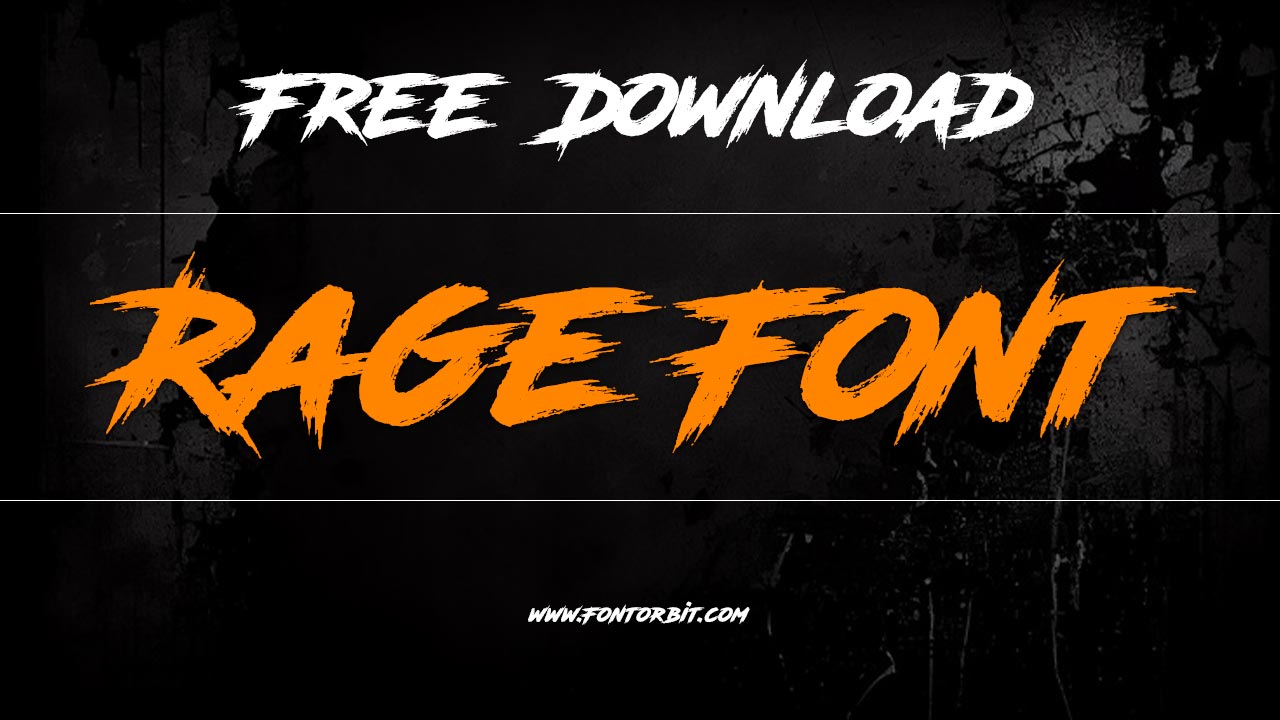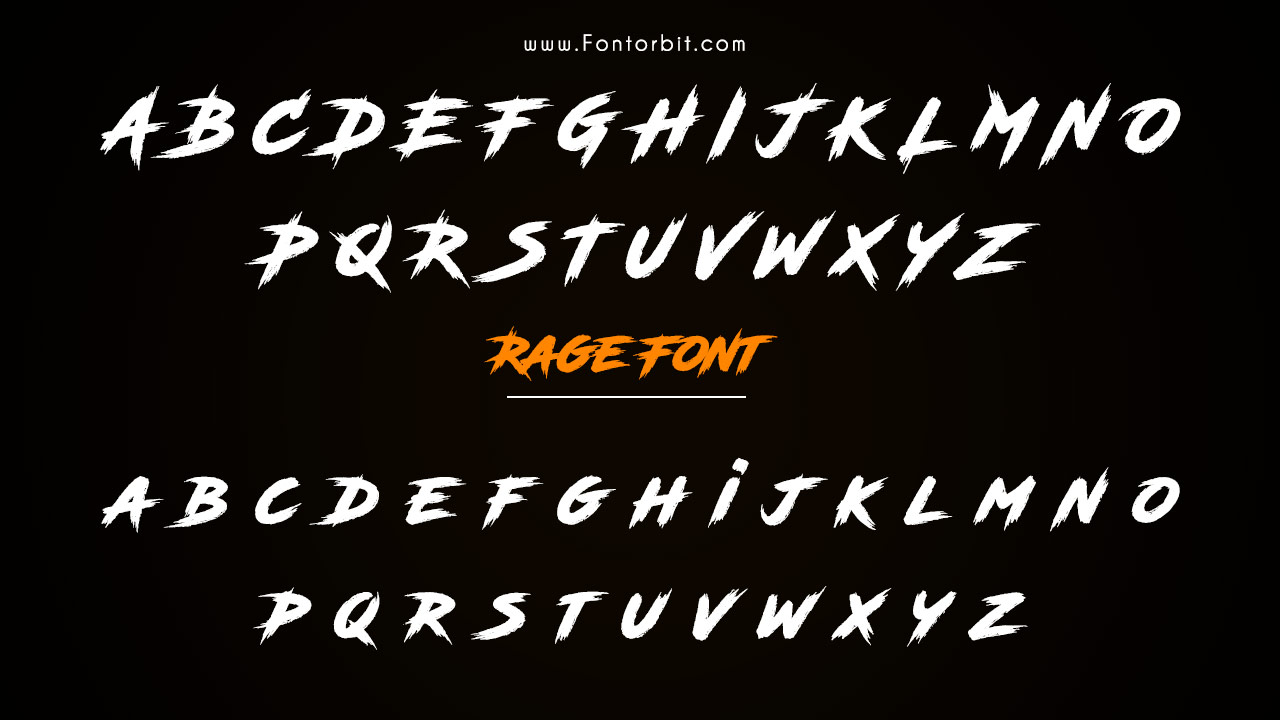
Rage is a bold, rough script font designed by Ron Zwingelberg and published by URW Type Foundry. It was first published on June 19, 2016. The font has a trashy, rebellious style, suitable for attention-grabbing designs. It’s free for personal use, with commercial licenses available through the designer’s website.
- Rage STD Regular
- Rage Italic
Rage suits edgy or aggressive designs.
- Album covers
- Apparel designs
Rage font offers a striking and edgy grunge style that is perfect for bold and daring projects. This font is ideally suited for personal use, with various commercial options also available to meet your needs. Whether you’re designing for print or digital, Road Rage will make a powerful statement and elevate your creative work.